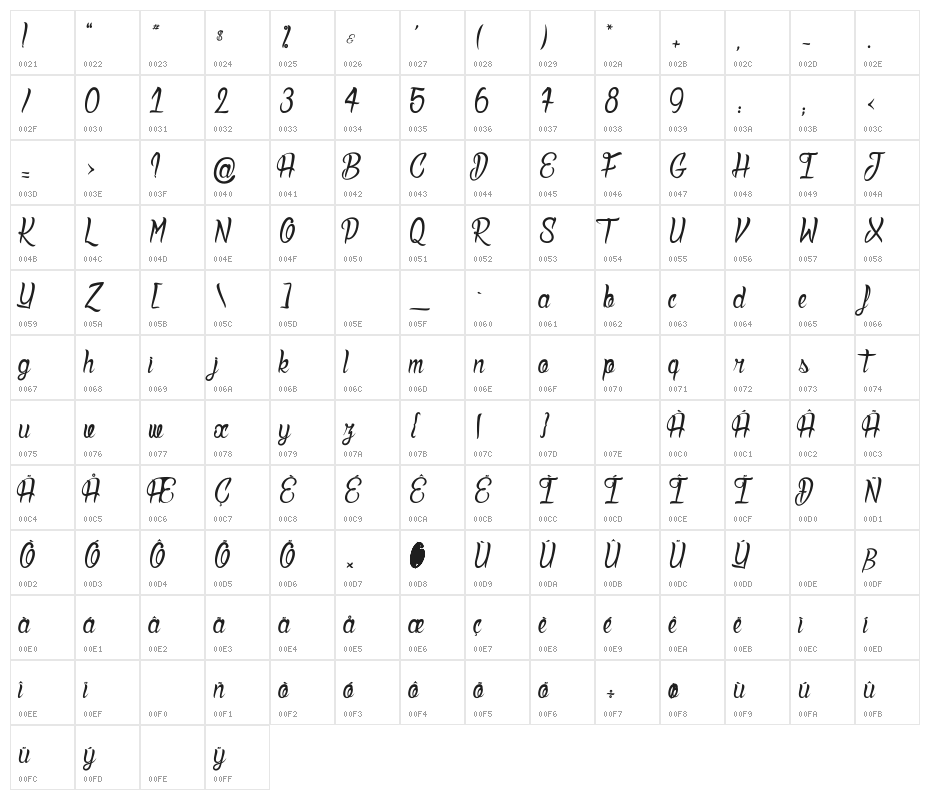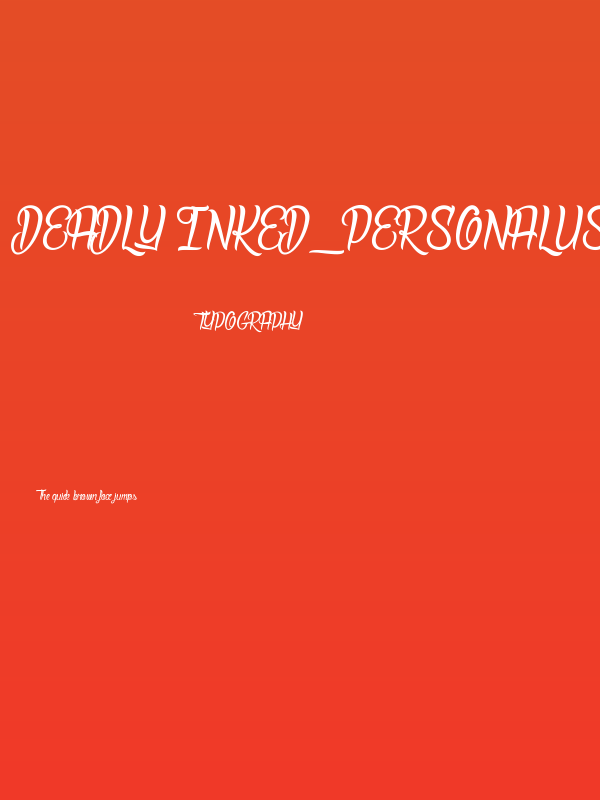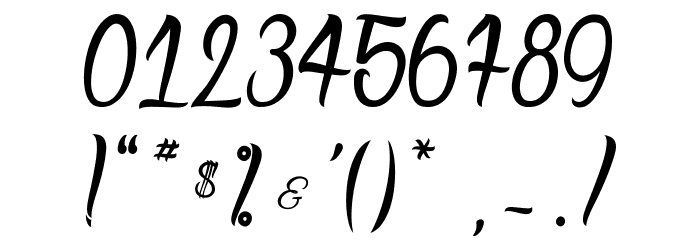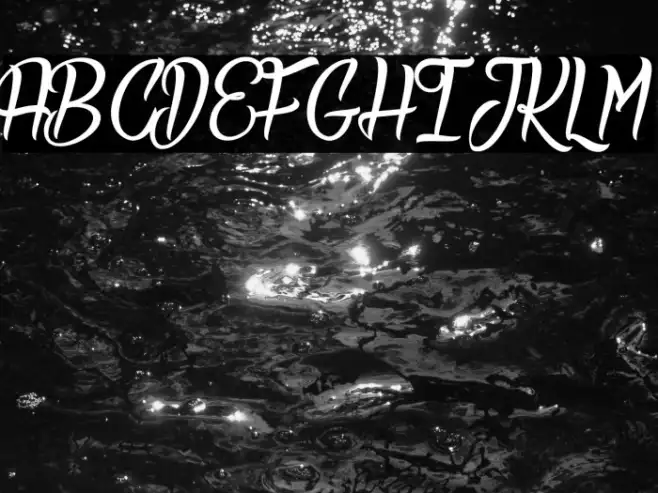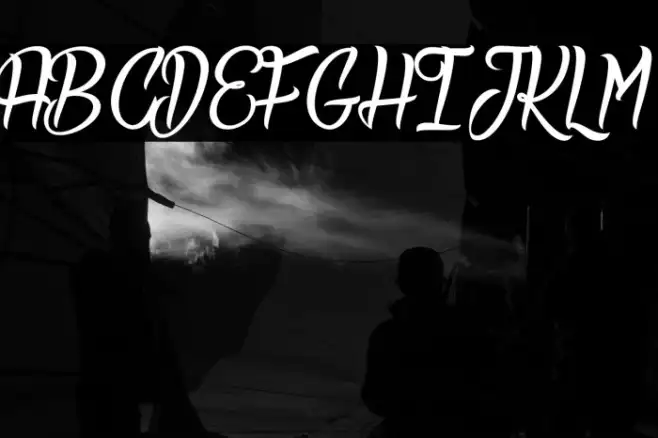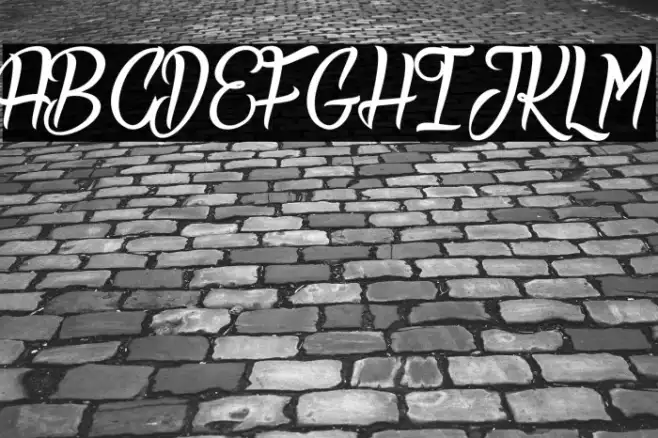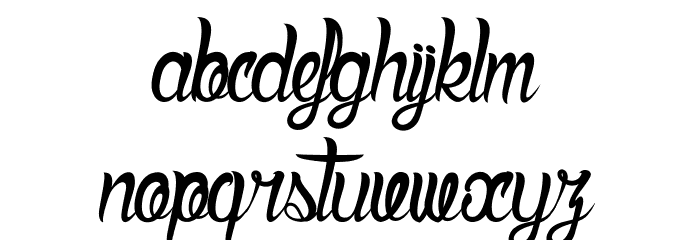
Deadly Inked_PersonalUseOnly Font
Deadly Inked_PersonalUseOnly Description
This font features a bold and dynamic script style with a strong presence. The characters are intricately designed, showcasing a flowing and connected form that mimics the fluidity of handwriting. The uppercase letters are tall and elegant, while the lowercase letters maintain a consistent rhythm and style. Numbers and special characters are crafted with the same attention to detail, ensuring a cohesive look across all elements. The overall appearance is both artistic and legible, making it suitable for creative applications.
| Proposed Projects | Ideal for tattoo designs, artistic posters, branding, and invitations. |